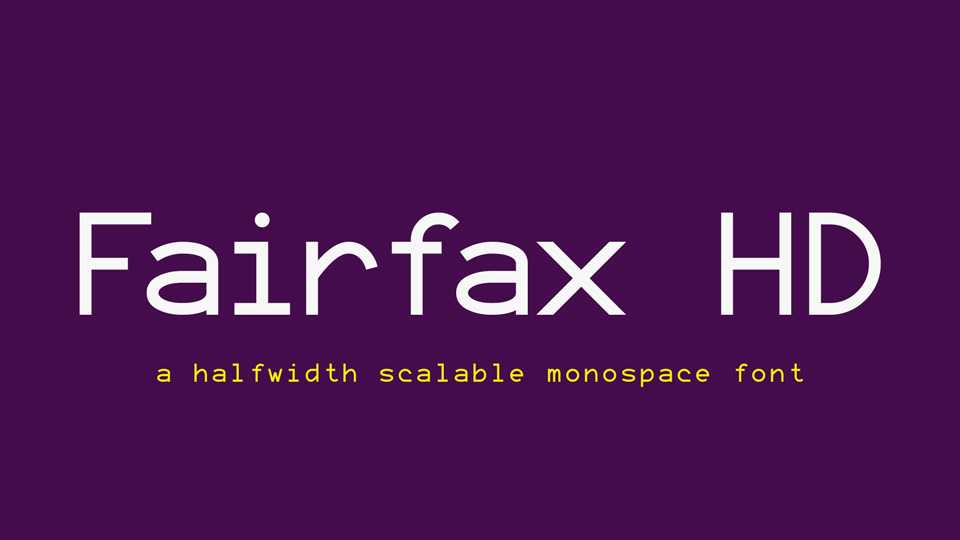
Download Fairfax HD font, a halfwidth scalable monospace typeface for terminals, text editors, IDEs, etc. It supports many scripts and a large number of Unicode blocks as well as constructed scripts.
Designer: Kreative Software